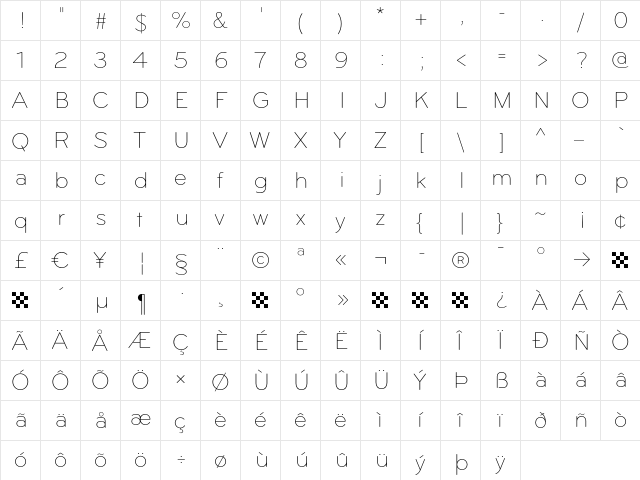
Bryant-Light Regular
Design Context for Bryant-Light Typeface
Bryant-Light takes a measured approach to typography — its balanced proportions and neutral character make it a reliable workhorse for both digital and print work. The delicate stroke weight brings airiness and refinement to layouts.